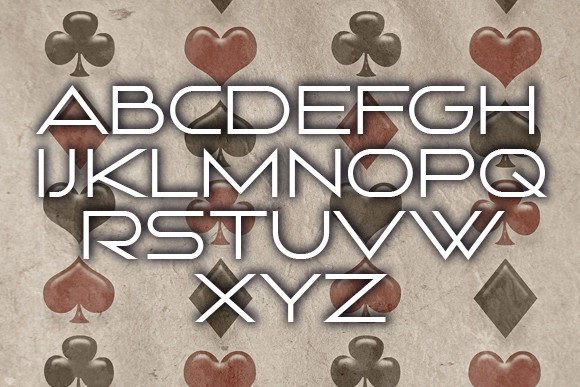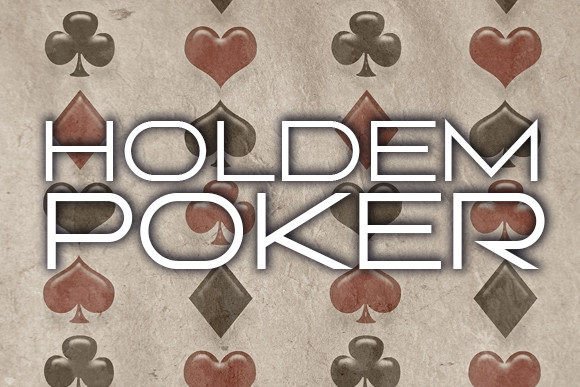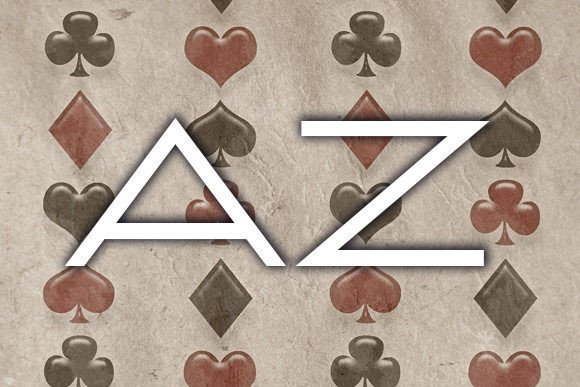
Introducing Card Player Font: Elevate Your Designs with Elegance
Are you a designer or crafter looking for a font that exudes sophistication and refinement? Look no further than Card Player Font, an elegant sans serif font that is sure to elevate the beauty of your projects. With its delicate and classy look, Card Player Font is the perfect choice for those who want to add a touch of luxury to their designs.
What Makes Card Player Font Special?
Card Player Font is a carefully crafted font that features a very delicate and classy look. It’s not too thin and not too thick, making it a perfectly balanced font that is both elegant and readable. The varied strokes and subtle nuances of the font give it a unique and sophisticated feel that is sure to impress.
Key Features of Card Player Font
- Elegant Sans Serif Design: Card Player Font boasts a sleek and modern sans serif design that is perfect for a wide range of applications, from logos and branding to packaging and advertising.
- Delicate and Classy Look: The font’s delicate and classy look makes it ideal for designs that require a touch of sophistication and refinement.
- Balanced and Varied: Card Player Font is carefully crafted to be neither too thin nor too thick, making it a perfectly balanced font that is both elegant and readable.
- Multipurpose: Whether you’re working on a logo, brochure, or website, Card Player Font is versatile enough to be used in a wide range of applications.
Why Choose Card Player Font?
With so many fonts to choose from, why should you choose Card Player Font? Here are just a few reasons why designers and crafters are falling in love with this elegant font:
- Unique and Sophisticated: Card Player Font is a one-of-a-kind font that is sure to make your designs stand out from the crowd.
- Ease of Use: The font is easy to read and works well in a variety of sizes, making it perfect for both print and digital applications.
- High-Quality Design: Card Player Font is designed with high-quality craftsmanship in mind, ensuring that your designs look professional and polished.
How to Use Card Player Font in Your Designs
Card Player Font is a versatile font that can be used in a wide range of applications. Here are just a few ideas to get you started:
- Logos and Branding: Use Card Player Font to create a sophisticated and elegant logo that reflects your brand’s values and personality.
- Packaging and Advertising: Add a touch of luxury to your packaging and advertising materials with Card Player Font.
- Web Design: Use Card Player Font to create a beautiful and elegant website that showcases your brand’s style and sophistication.
In conclusion, Card Player Font is an elegant sans serif font that is sure to elevate the beauty of your projects. With its delicate and classy look, balanced and varied strokes, and multipurpose design, Card Player Font is the perfect choice for designers and crafters who want to add a touch of luxury to their designs. Whether you’re working on a logo, brochure, or website, Card Player Font is a versatile and sophisticated font that is sure to impress.